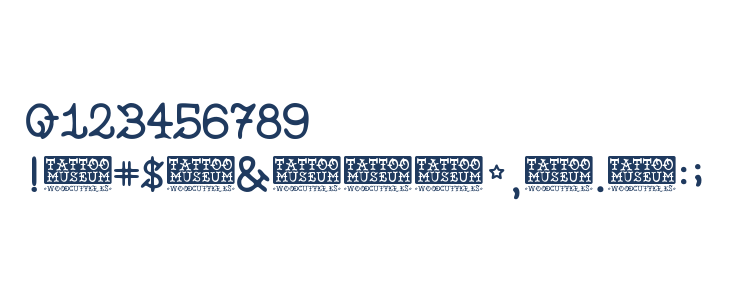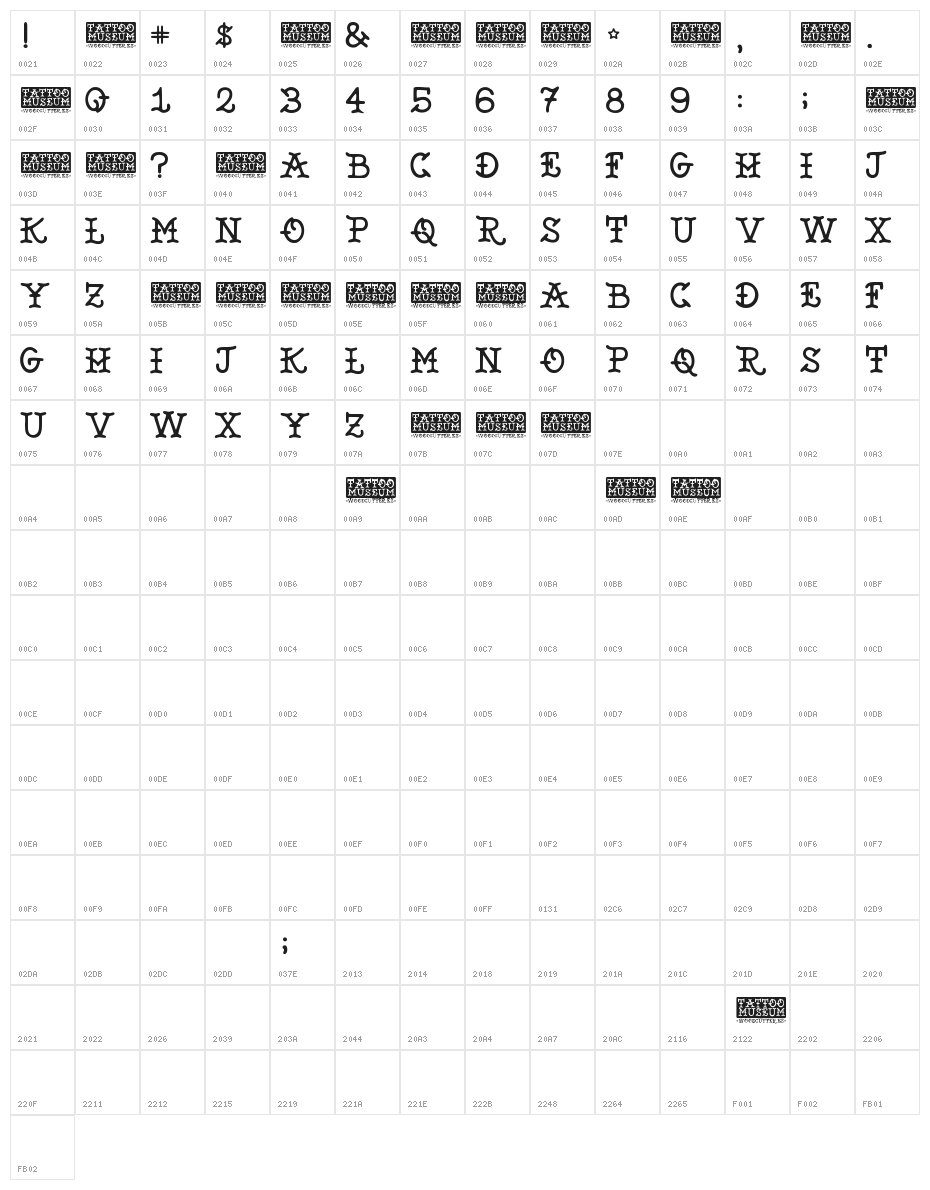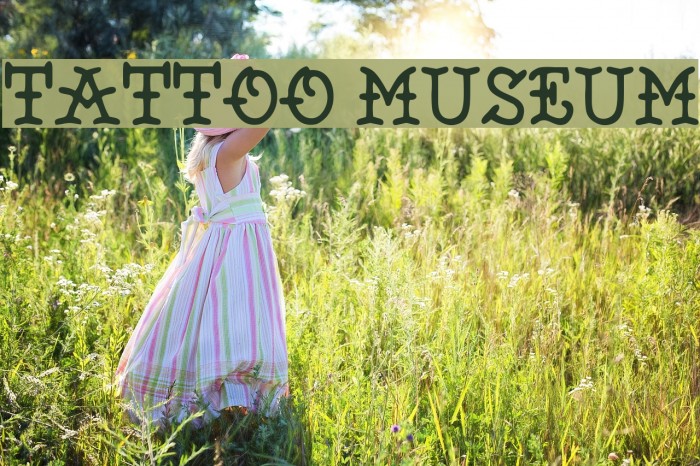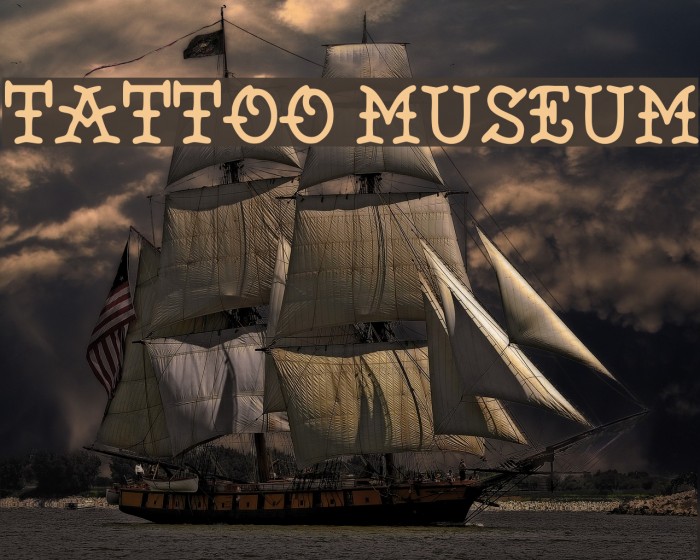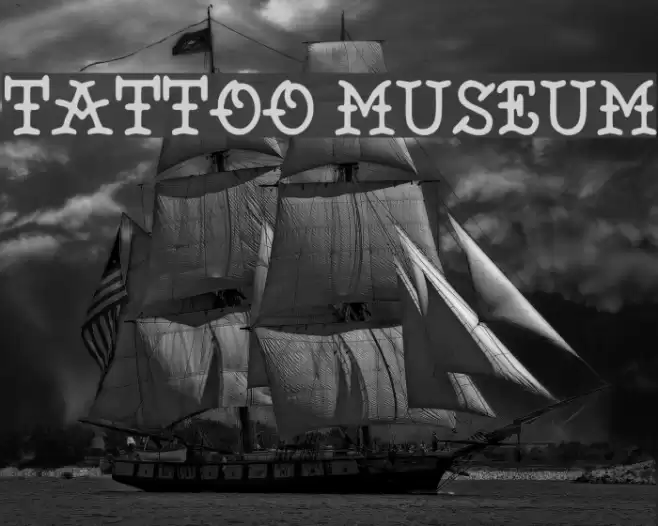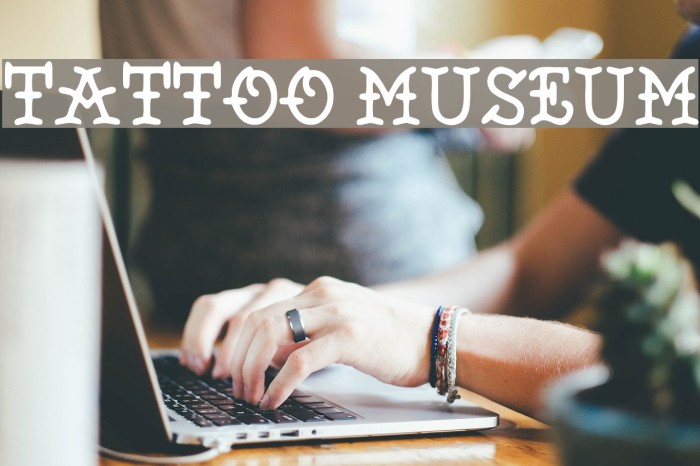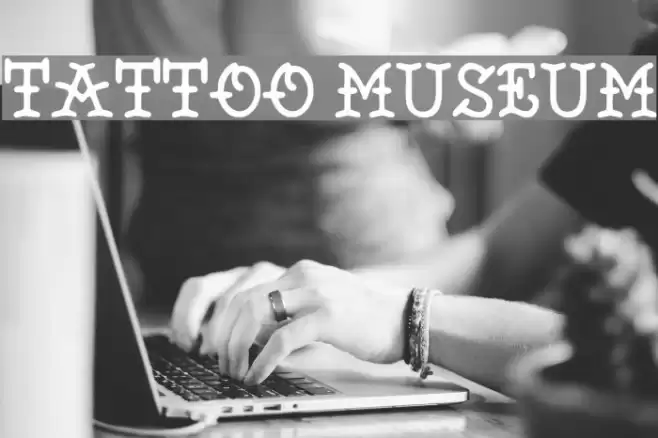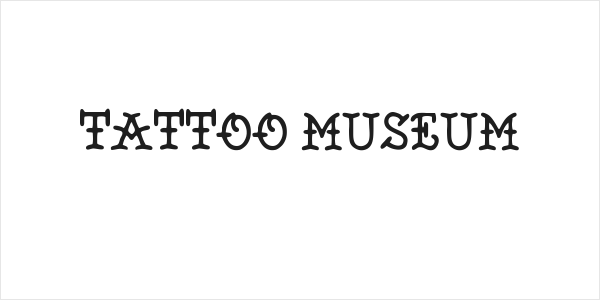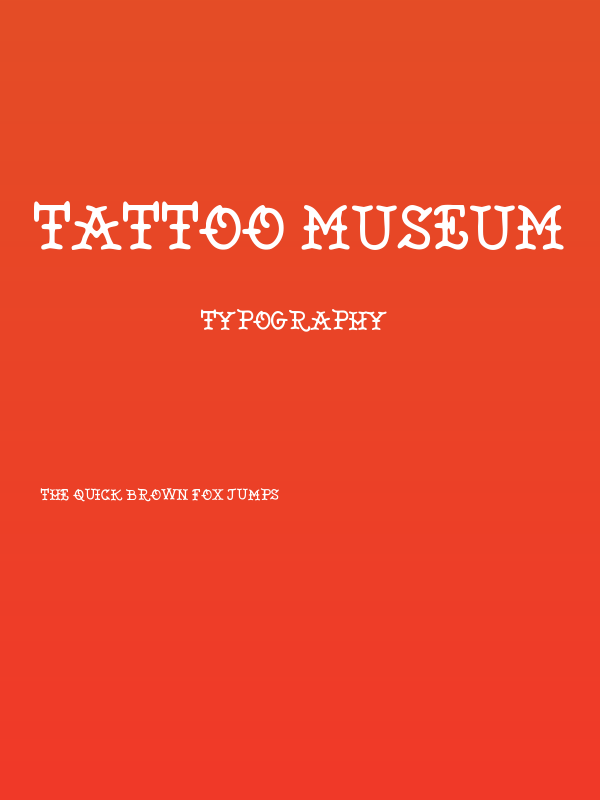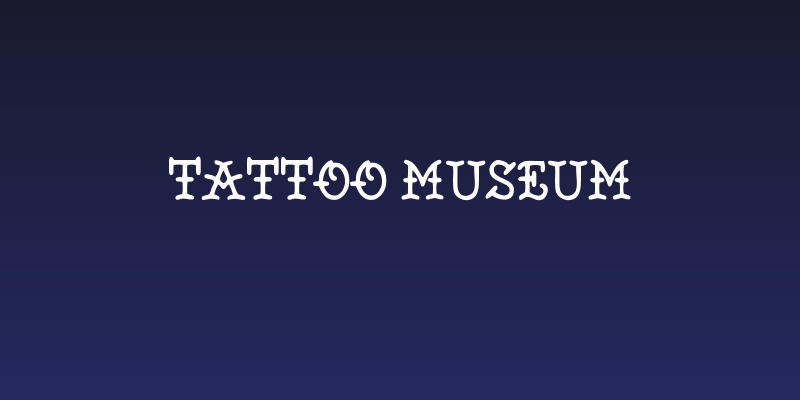
Tattoo Museum Font
Tattoo Museum Description
This font features a bold and decorative style with a unique flair that evokes a vintage tattoo aesthetic. The characters are designed with thick strokes and subtle curves, giving them a distinct and eye-catching appearance. The uppercase letters are particularly ornate, with embellishments that add to their visual interest. The lowercase letters maintain a consistent style, complementing the uppercase set. Numbers are bold and clear, ensuring readability. Special characters are included, each designed to match the overall theme. This font is ideal for projects that require a strong and artistic touch.
| Overall Style | Vintage, Decorative |
| Use Case | Logos, Headlines, Artistic designs |
| Proposed Projects | Ideal for tattoo designs, vintage posters, branding, and artistic projects. |